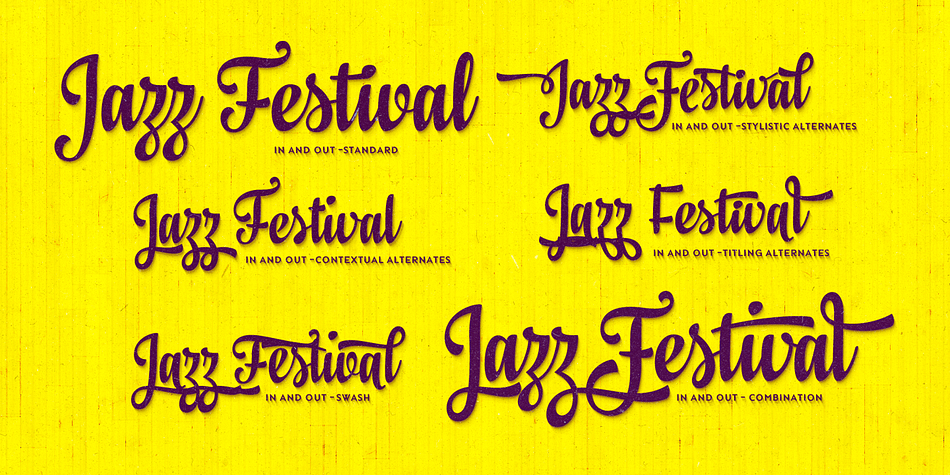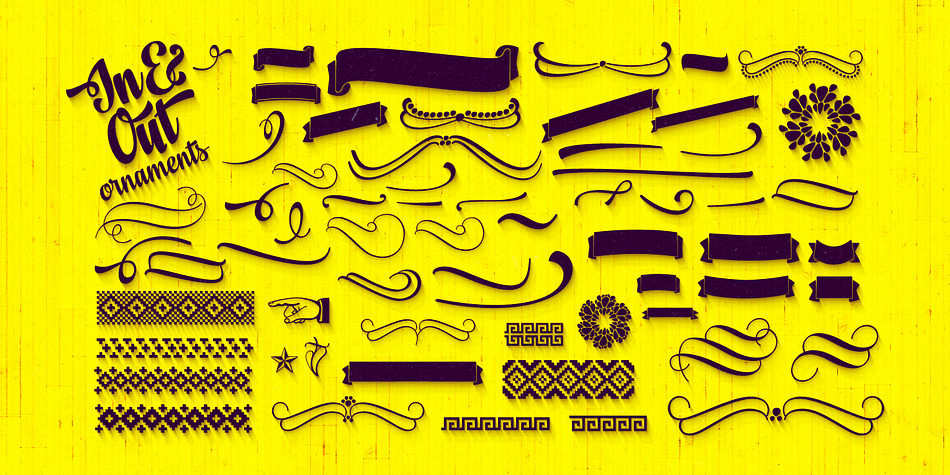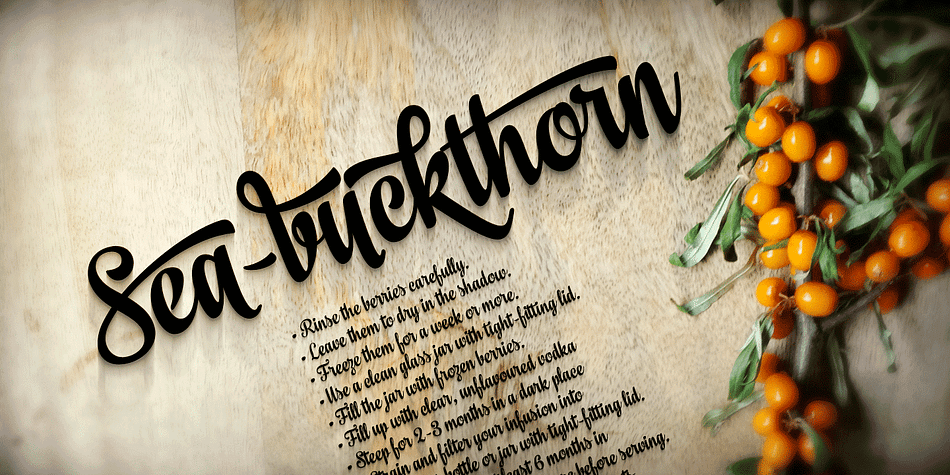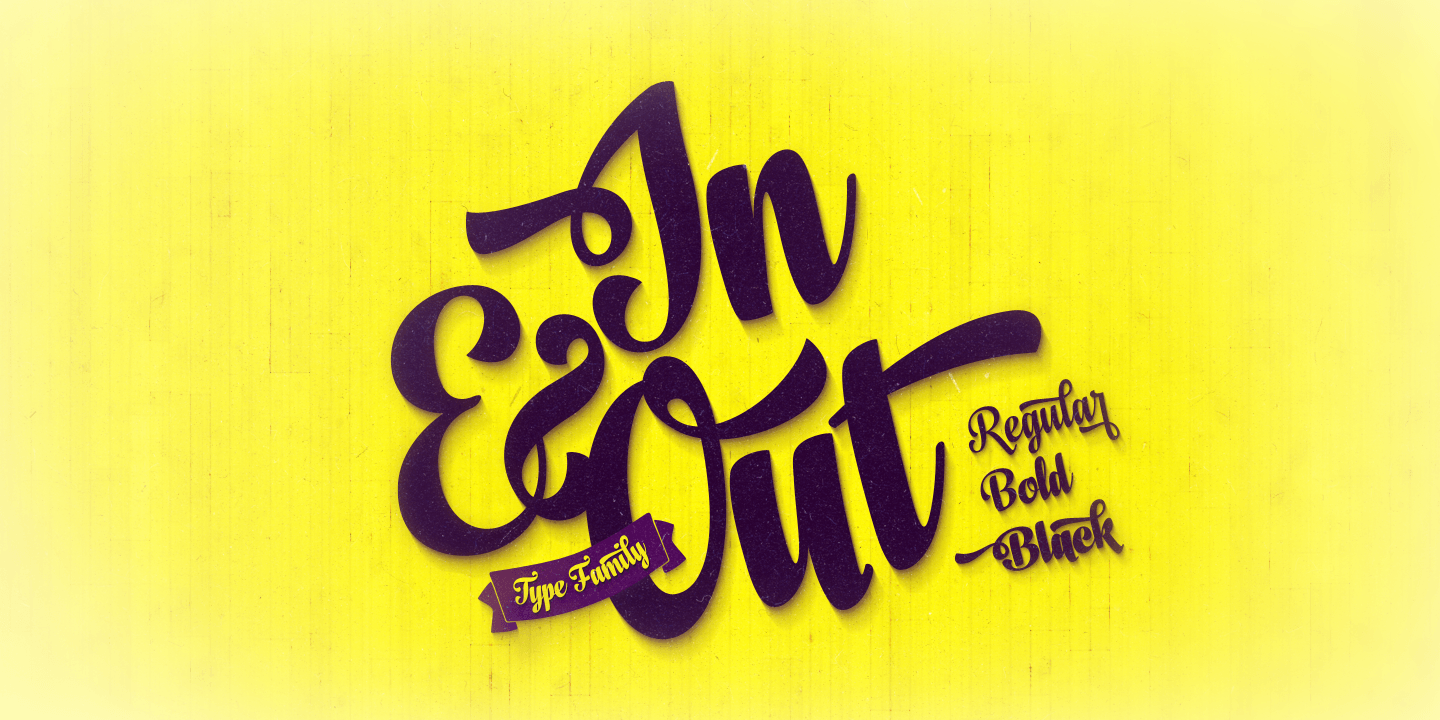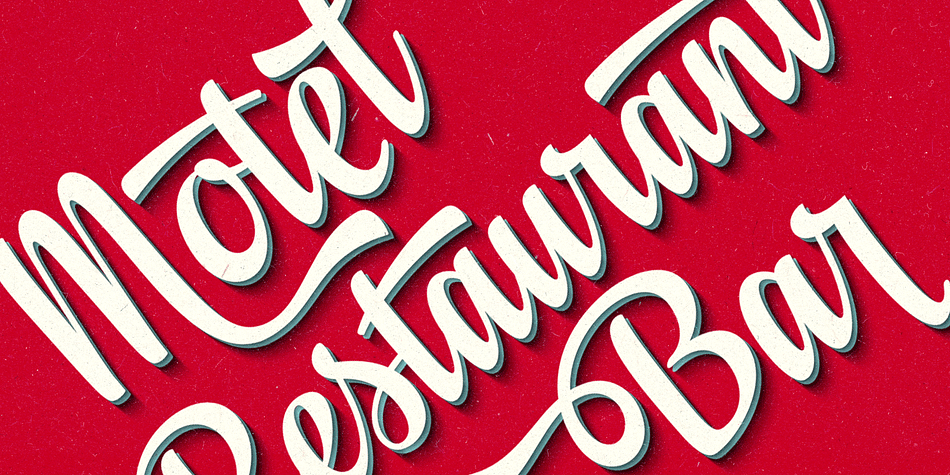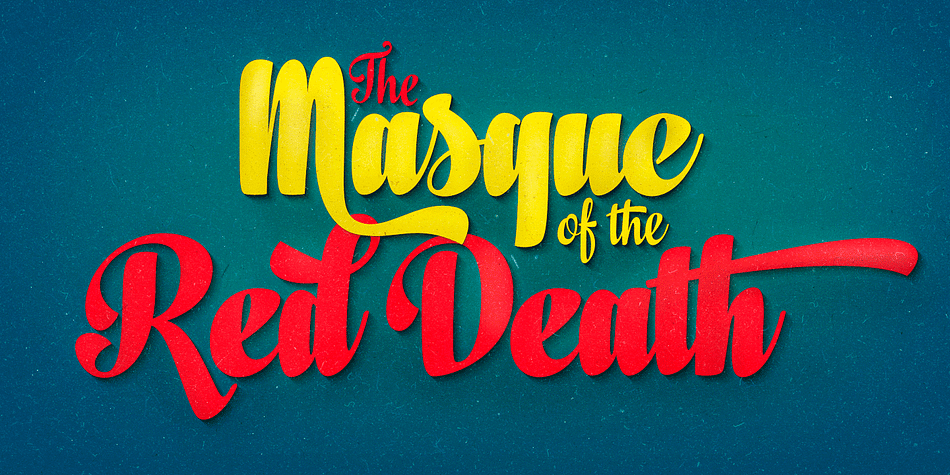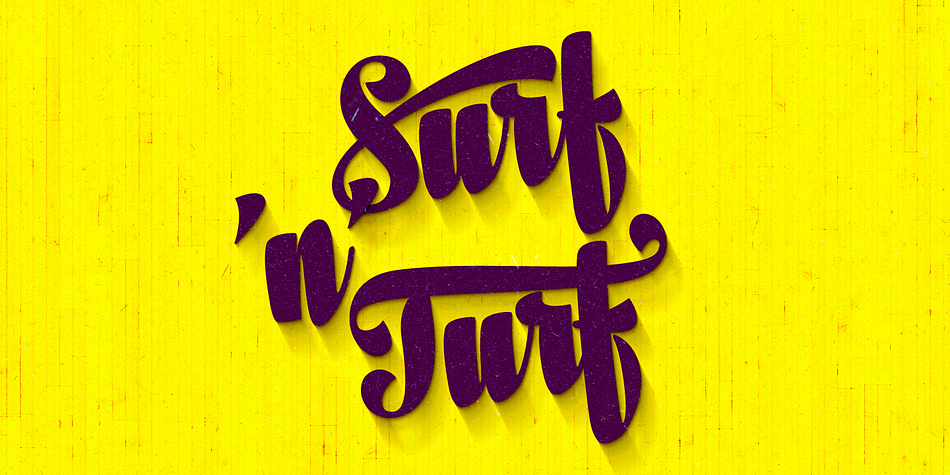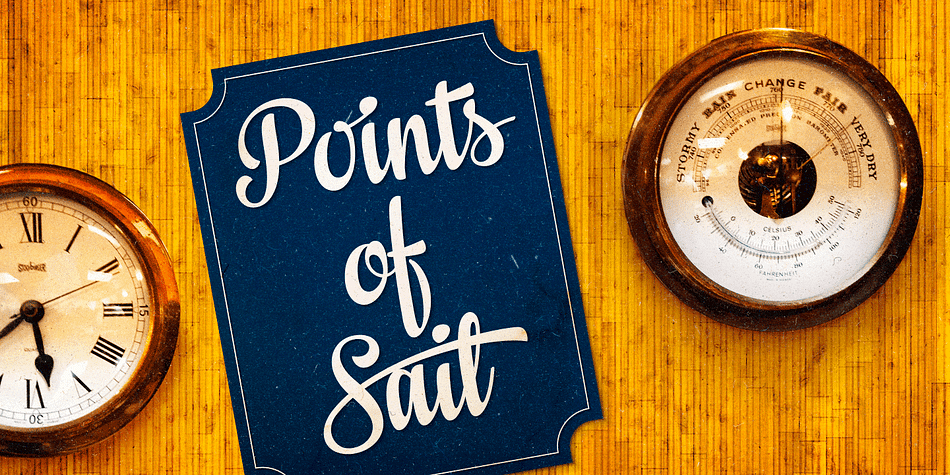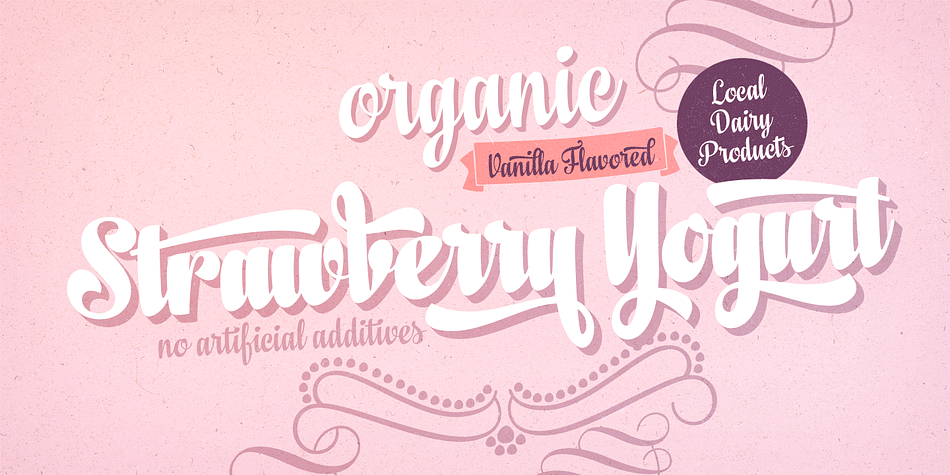
In And Out is a dingbat and brush script font family. This typeface has seven styles and was published by Fenotype.
In And Out is an elegant and diverse script family of three weights and an ornament set. In And Out is equipped with plenty of OpenType features: To activate the alternates turn on Swash, Contextual, Stylistic or Titling Alternates or Tabular or OldStyle Lining in any OpenType savvy program or manually select from even more characters from the Glyph Palette.
In And Out is an effective and easy to use font family for creating ambitious headlines, logos & posters with a custom-made feeling.